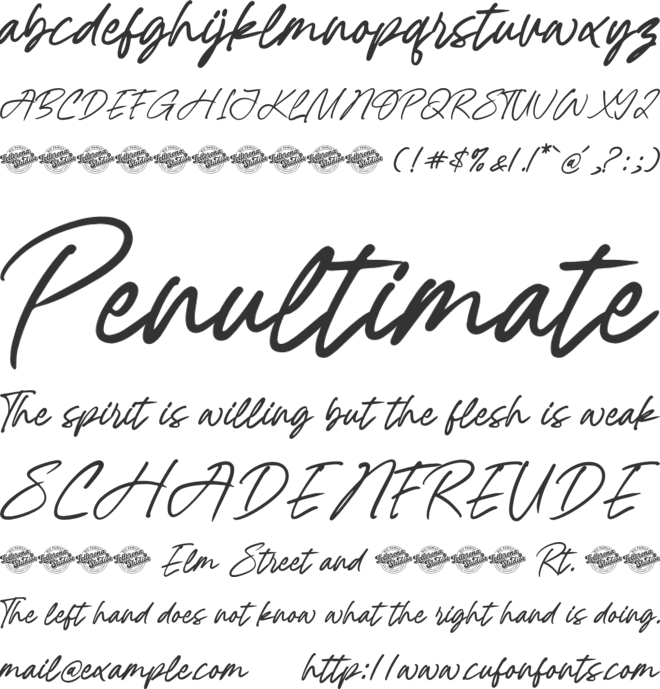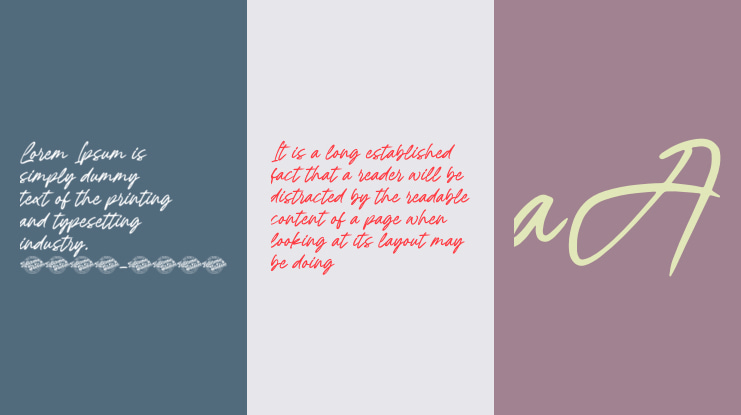
Oakrest Charm - Modern Handwritten Font
Elevate your design aesthetic with the fluid elegance of Oakrest Charm - Modern Handwritten Font. This typeface captures a perfect balance between organic strokes and contemporary sophistication, offering an authentic hand-lettered feel that breathes life into digital canvases. Its natural flow and expressive personality make it an essential tool for designers seeking to add a human touch to their work while maintaining a polished, professional look that commands attention.
Discover the ultimate versatility required for high-end branding and modern creative projects. Oakrest Charm - Modern Handwritten Font is perfect for luxury packaging, elegant wedding stationery, sophisticated social media graphics, and impactful logos. Whether you are crafting editorial layouts or boutique signage, this font provides the artistic flair needed to distinguish your brand in a crowded marketplace and provide a premium aesthetic.